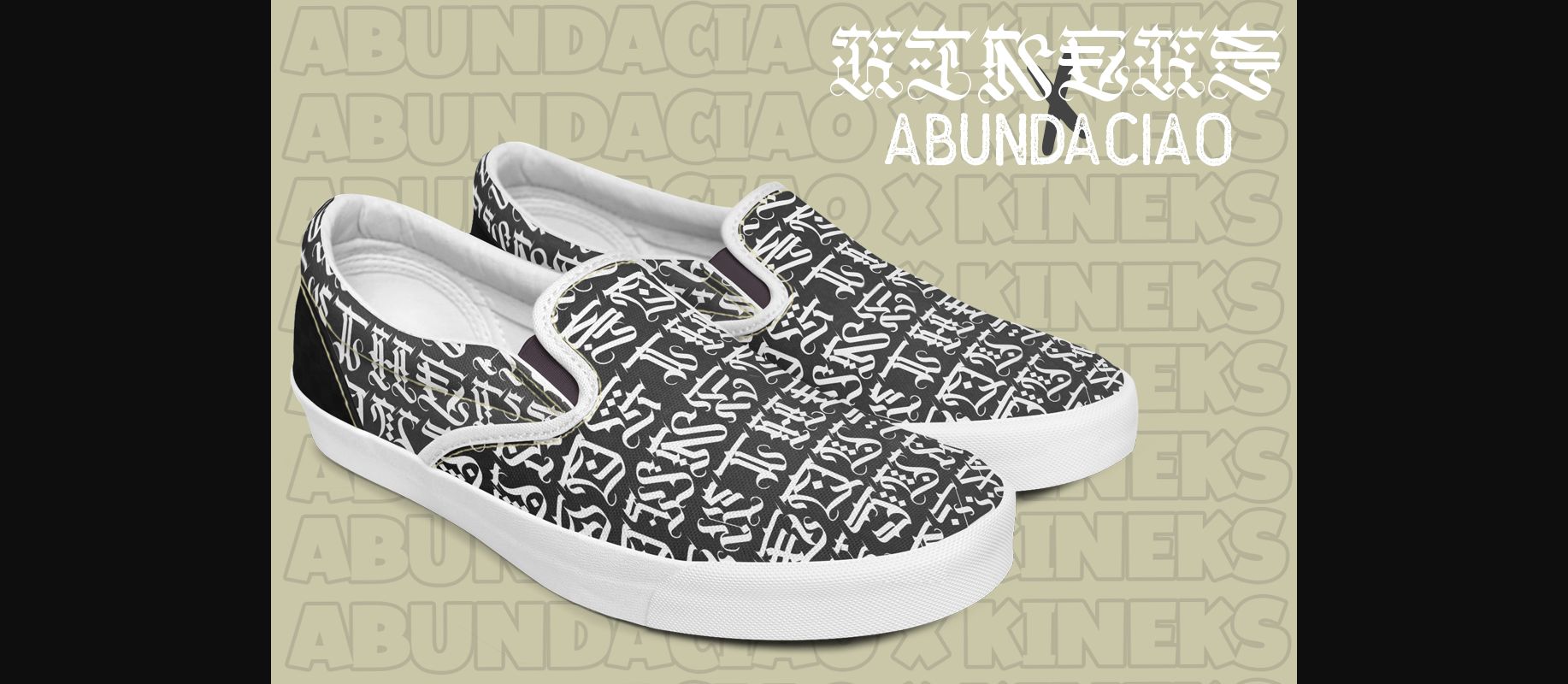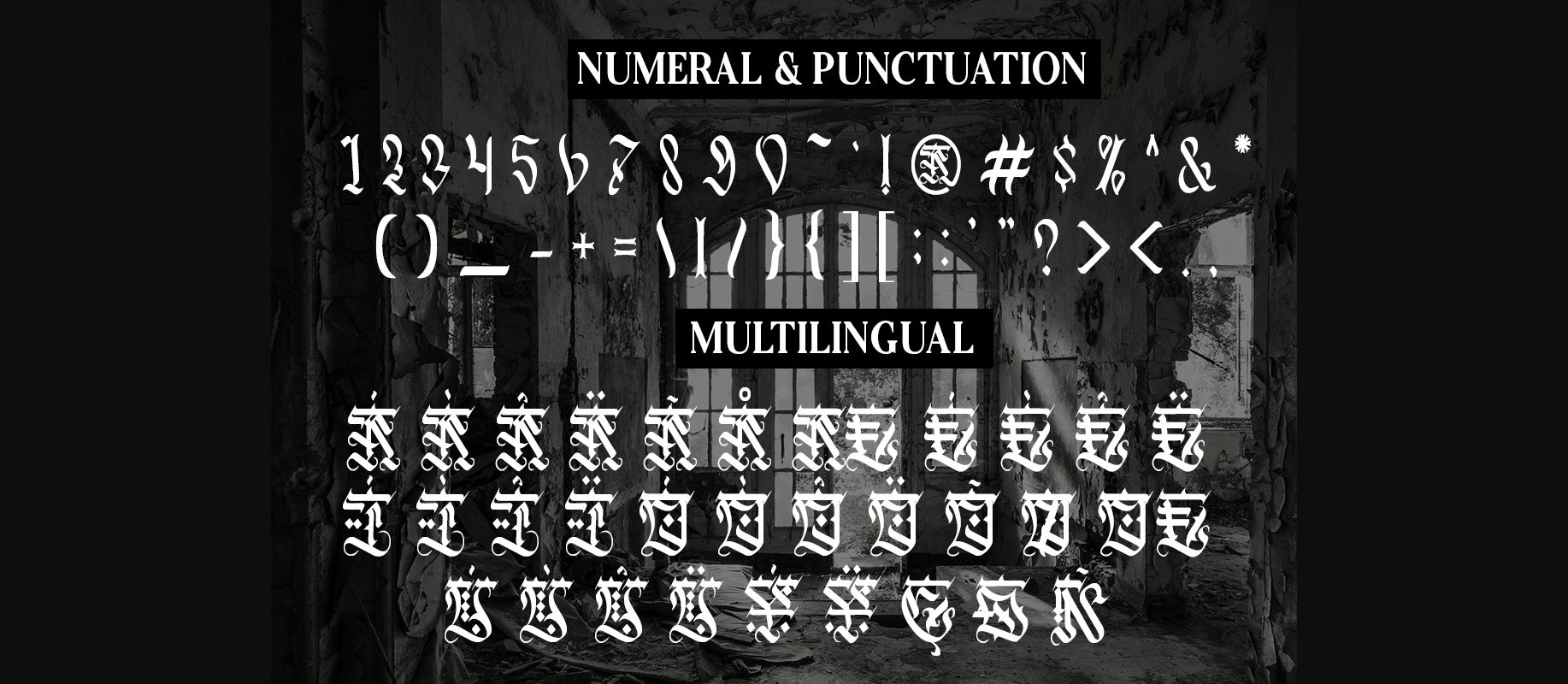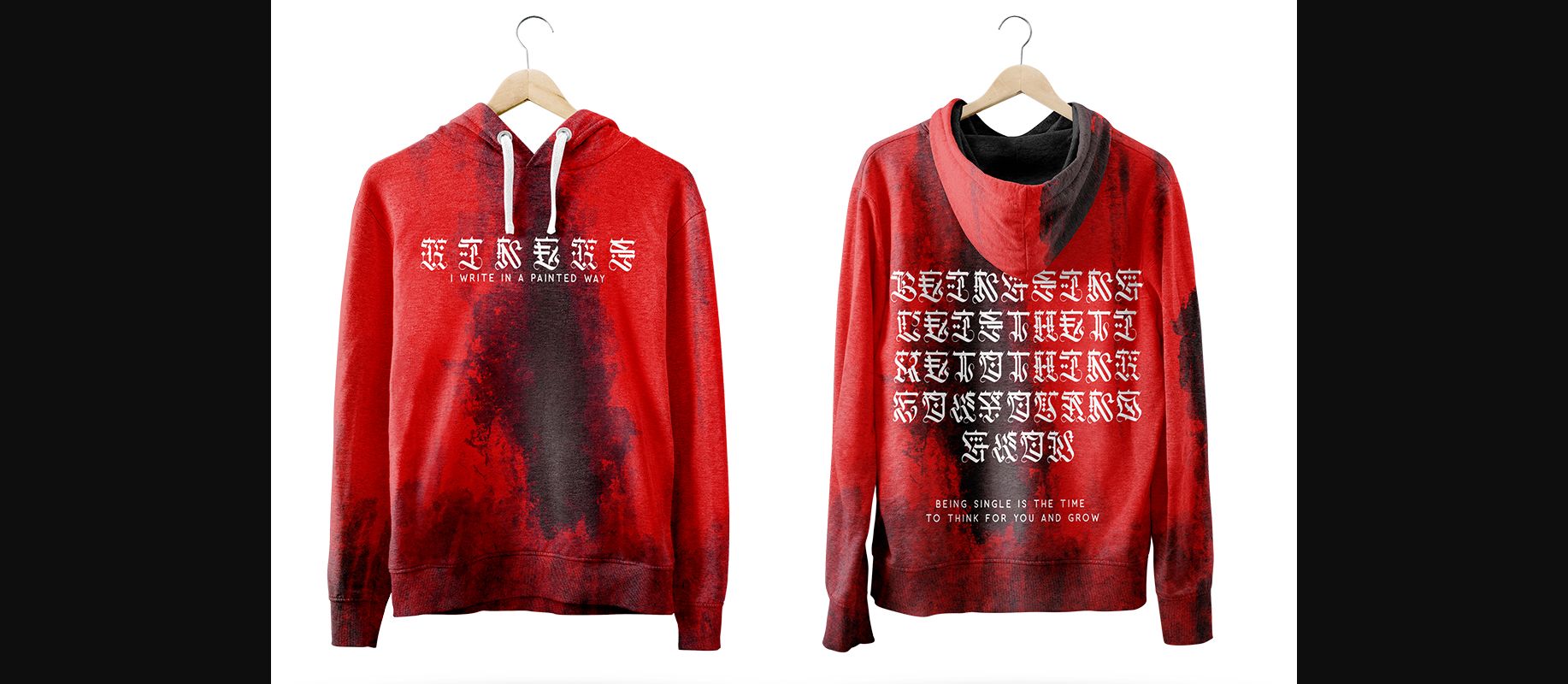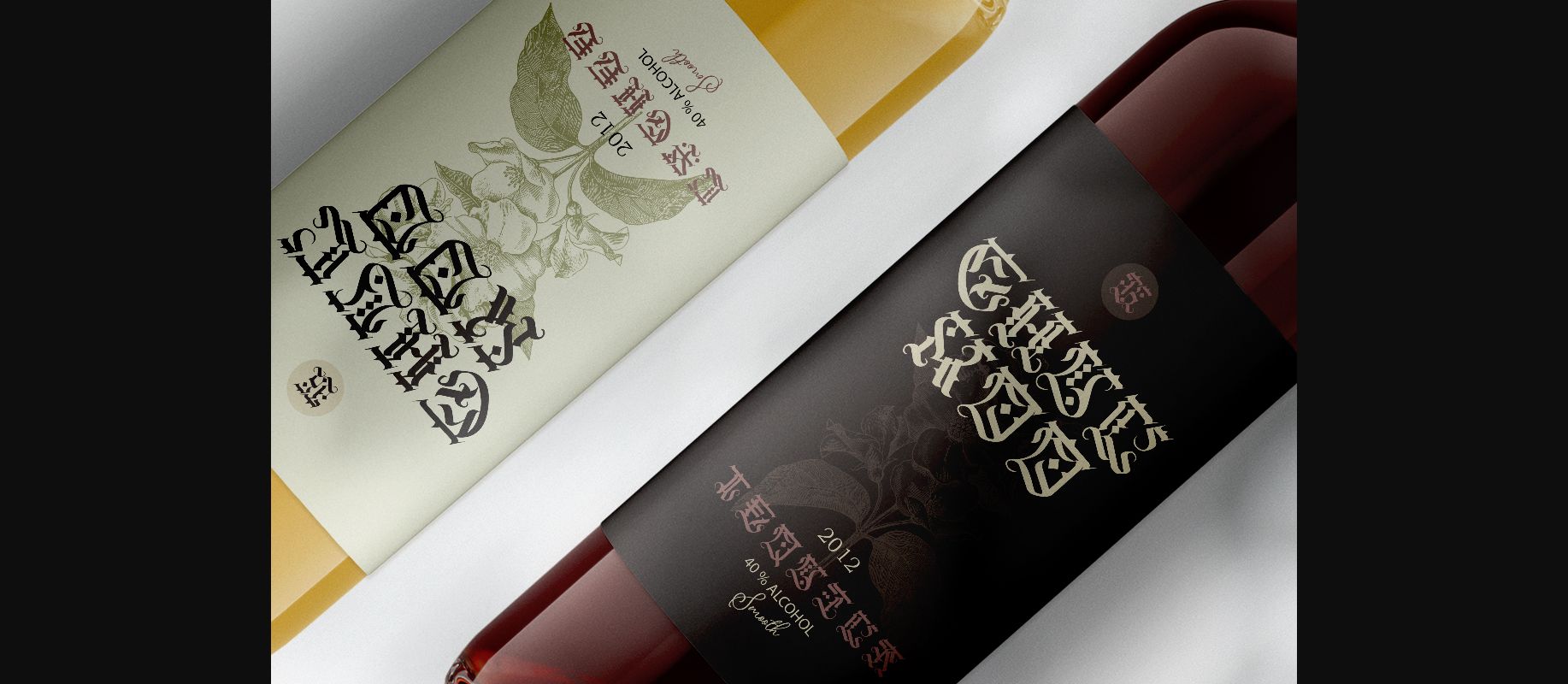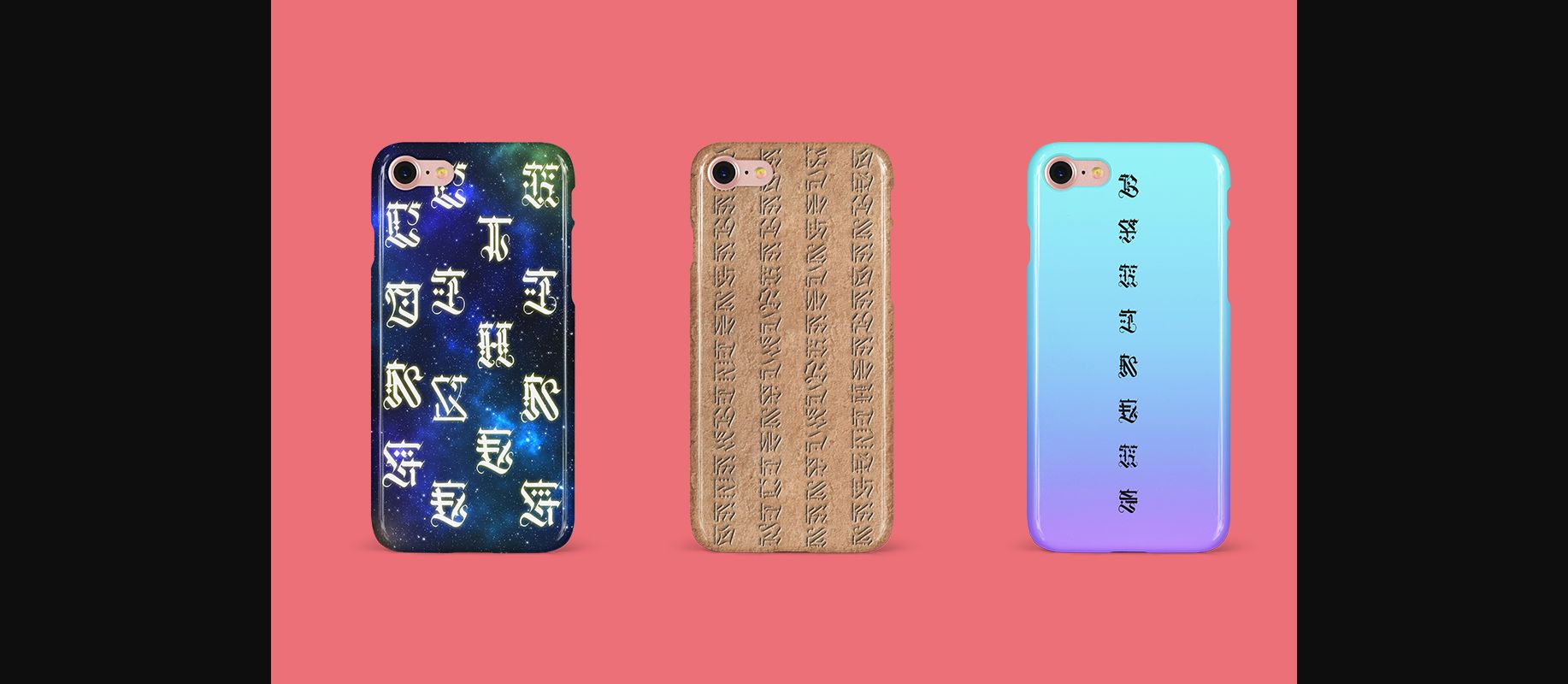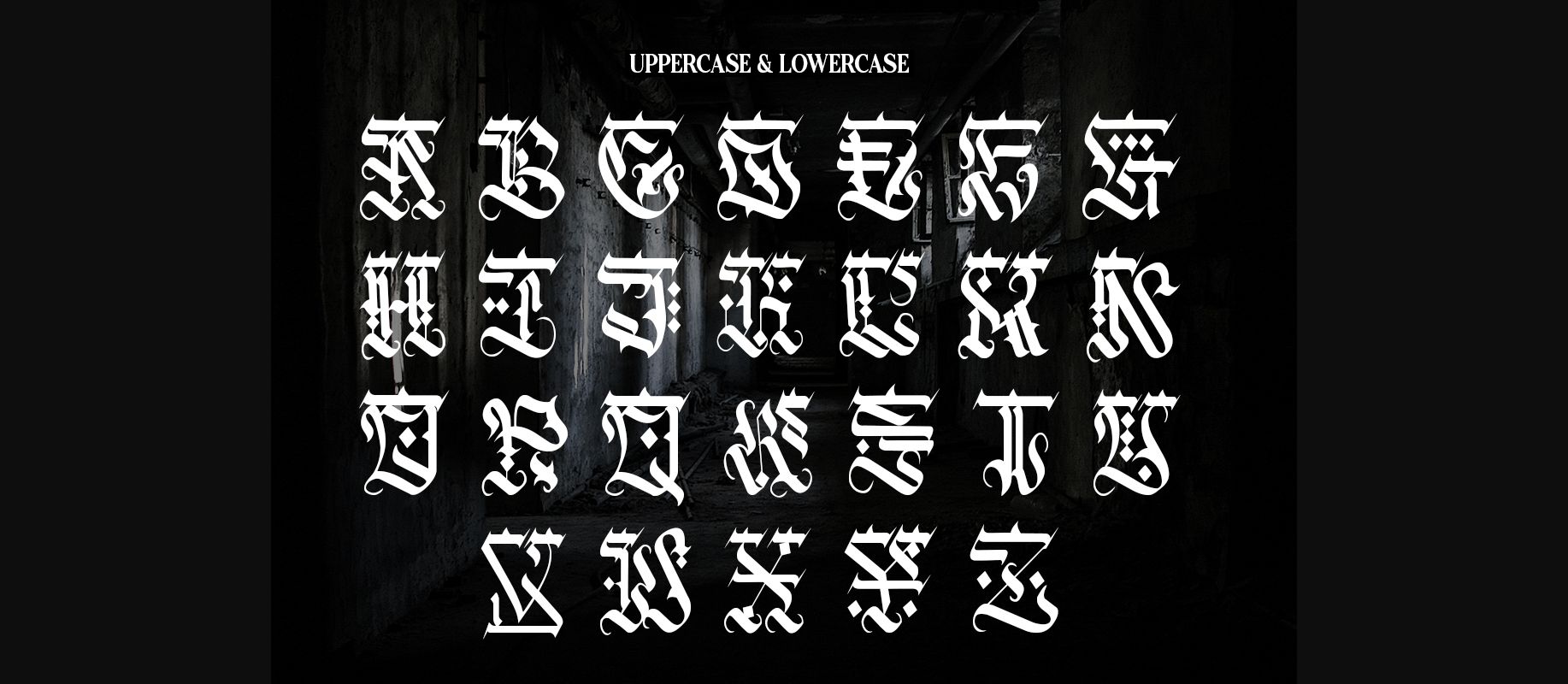
Gin Font
About Gin Font
Gin is a futuristic decorative font that combines calligraphy, graffiti, and typography. This font is inspired by a street art called calligraffiti where this font is abstract and elegant. This font is suitable for those who are anti-mainstream and out of the zone.